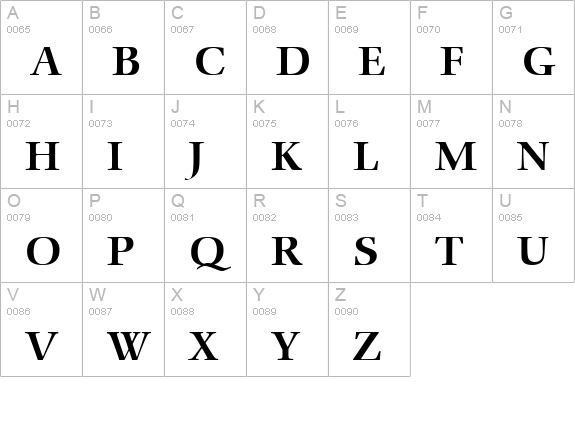
Comenius Antiqua Medium is a balanced, medium-weight variant in the Comenius typeface family \xE2\x80\x94 well suited to sub-headlines, navigation, and balanced editorial work.
Comenius Antiqua Medium font exudes timeless elegance and sophistication with its classic serif style. The medium weight strikes the perfect balance between readability and style, making it an ideal choice for both digital and print designs. This font brings a touch of refinement to any project, whether it be for branding, editorial design, or web content. What sets Comenius Antiqua Medium font apart is not just its aesthetic appeal, but also the fact that it is available for free download at FontsMarket.com. This makes it accessible to a wide range of designers and creators looking to elevate their work with a high-quality typeface. With its graceful curves and balanced proportions, Comenius Antiqua Medium font is sure to add a touch of sophistication to any design project.